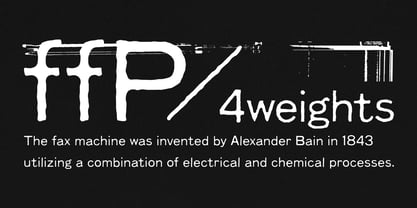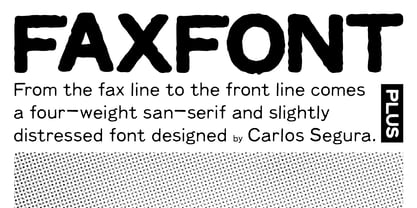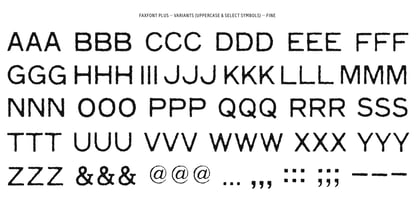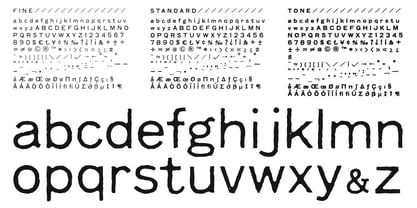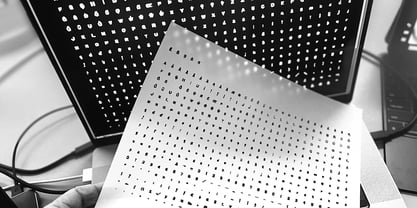
Faxfont Plus
The Faxfont Plus Font Family was designed by Carlos Segura and published by T-26. Faxfont Plus contains 4 styles and family package options. More about this family
Stylistic Alternates – This version includes two alternate designs for every letter, number, and primary punctuation mark. The alternates were designed to provide enough organic variation from the default characters when viewed at medium-to-large display sizes, while avoiding differences that feel overly exaggerated or cartoonish.
Contextual Alternate Feature – The fonts are built to automatically cycle through their available alternates while typing. This functionality works in applications that support OpenType features, such as Adobe Creative Cloud applications.